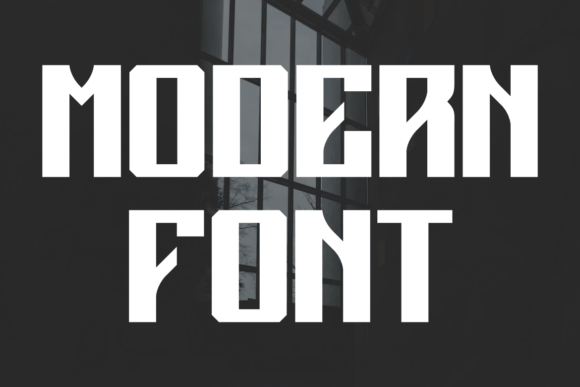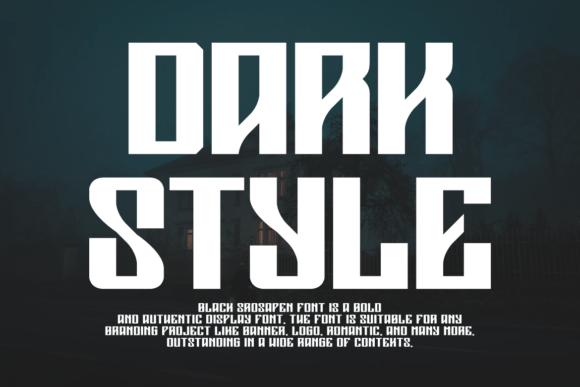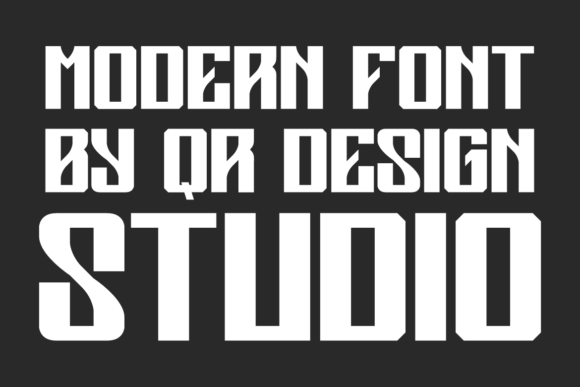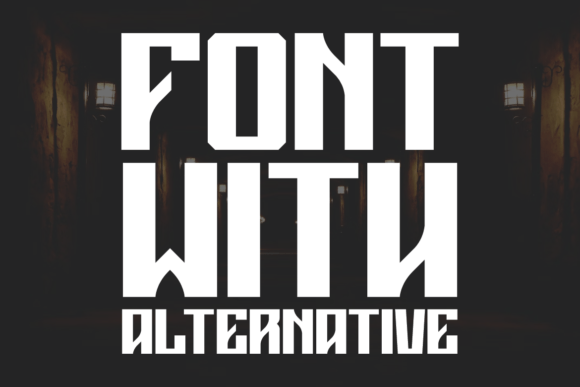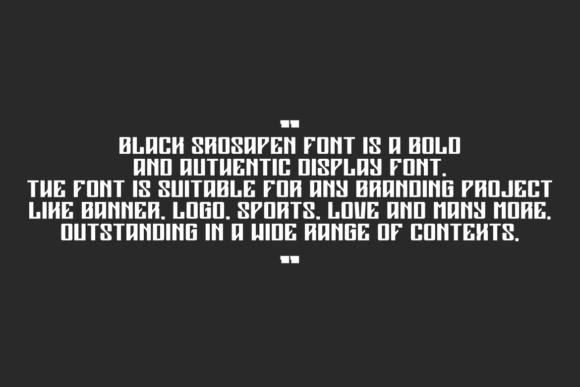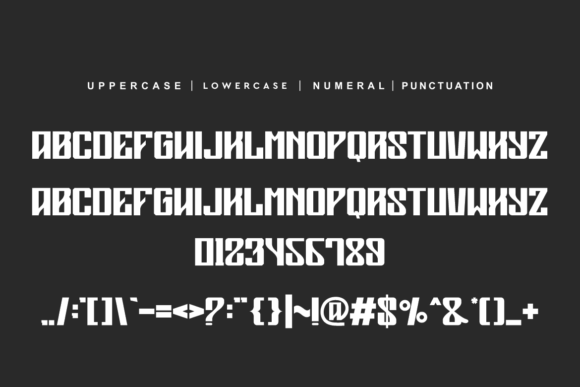
Introduction to Black Srosapen Font
Black Srosapen Font is a bold and authentic display font.
The font is suitable for any branding project like logos, sports, and many more Outstanding in a wide range of contexts.
Key Features of Black Srosapen Font
Why Choose Black Srosapen Font?
Black Srosapen Font offers exceptional quality and versatility, making it a valuable addition to your design toolkit. Whether you’re creating for personal projects or commercial use, Black Srosapen Font delivers professional results.